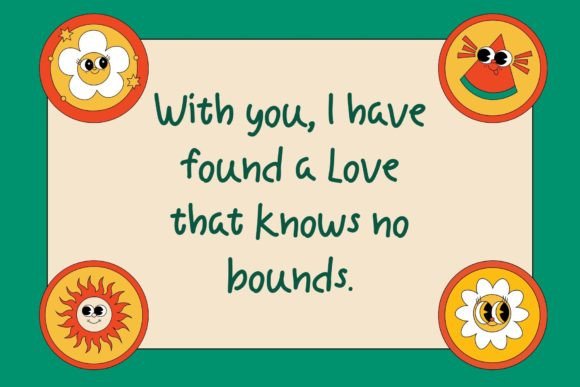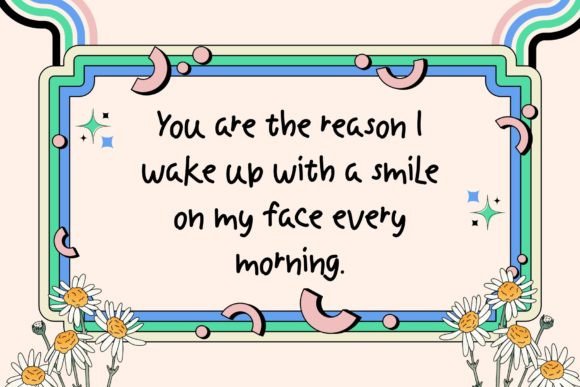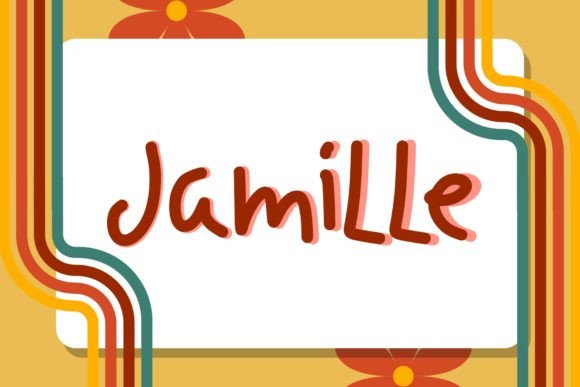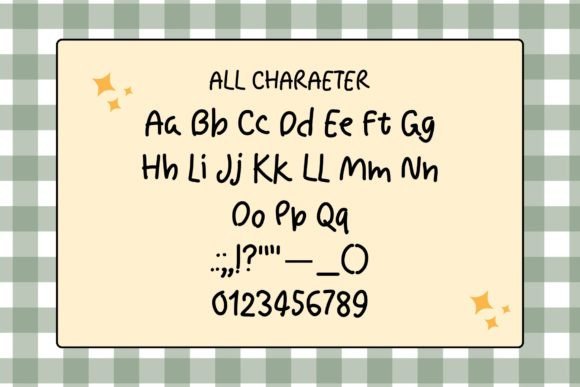
Discover the Elegance of Jamille Font
You know that moment when you’re working on a design project and you just can’t seem to find the right font to bring it all together? The words on the page feel like they’re stuck in a sea of sameness, and you’re desperate for something that will elevate your creation to the next level. That’s where Jamille Font comes in – a stunning typeface that combines sophistication with versatility, making it the perfect companion for any creative project.
Whether you’re a seasoned designer or just starting out, Jamille Font is a valuable addition to your toolkit. With its elegant lines and refined character, it’s the ideal choice for a wide range of projects, from high-end branding to elegant invitations. The possibilities are endless, and with Jamille Font by your side, you’ll be able to bring your designs to life in a whole new way.
Key Features of Jamille Font
- Font Family: Jamille, Jamille Italic, Jamille Bold, Jamille Bold Italic
- Language Support: Latin-based languages, including English, Spanish, French, German, Italian, and many more
- Unique Characteristics: Jamille features a unique blend of modern and classic design elements, with a focus on readability and elegance
Designer Review: Jamille Font
Overall, I have mixed feelings about the Jamille Font. There are some aspects that I really enjoy, but there are also some limitations that hold it back from being a truly exceptional font.
- Unique Character**: Jamille Font has a unique and playful character that makes it stand out from more traditional fonts.
- High Legibility**: The font is highly legible, even at smaller font sizes, making it suitable for a wide range of applications.
- Customization Options**: The font comes with a range of customization options, including different weights and styles, which can help to create a unique look and feel.
- Lack of Consistency**: Despite its unique character, the font sometimes feels inconsistent in its design, which can make it harder to use effectively.
- Limited Versatility**: While the font is highly legible, it may not be the best choice for more formal or professional applications, where a more traditional font may be more suitable.
In conclusion, the Jamille Font is a solid choice for designers looking for a unique and playful font, but it may not be the best choice for every project. With some careful consideration and customization, it can be a great addition to any design.
Tips for Getting the Most Out of Jamille Font
To get the most out of Jamille Font, use it sparingly in bold or italic styles to create visual interest. Combine it with other fonts to create a unique and stylish look.
Common use cases for Jamille Font include:
- Magazine and newspaper headlines
- Infographics and data visualizations
Alternatives to Jamille Font for Designers
Playfair Display is a luxurious and elegant serif font, perfect for creating a sophisticated and high-end look. It’s ideal for use in branding, advertising, and editorial design.
Compared to Jamille Font, Playfair Display has a more refined and classic feel, making it suitable for high-end applications. While Jamille Font has a more modern and sleek appearance, Playfair Display is better suited for traditional and vintage-inspired designs.
Montserrat is a modern sans-serif font that’s perfect for creating a clean and minimalist look. It’s ideal for use in digital design, branding, and advertising.
Compared to Jamille Font, Montserrat is more geometric and modern, making it better suited for digital applications. While Jamille Font has a more rounded and friendly appearance, Montserrat is more suitable for modern and tech-inspired designs.
Merriweather is a classic serif font that’s perfect for creating a traditional and timeless look. It’s ideal for use in publishing, editorial design, and branding.
Compared to Jamille Font, Merriweather has a more traditional and classic feel, making it suitable for applications where a sense of history and heritage is desired. While Jamille Font has a more modern and sleek appearance, Merriweather is better suited for traditional and vintage-inspired designs.